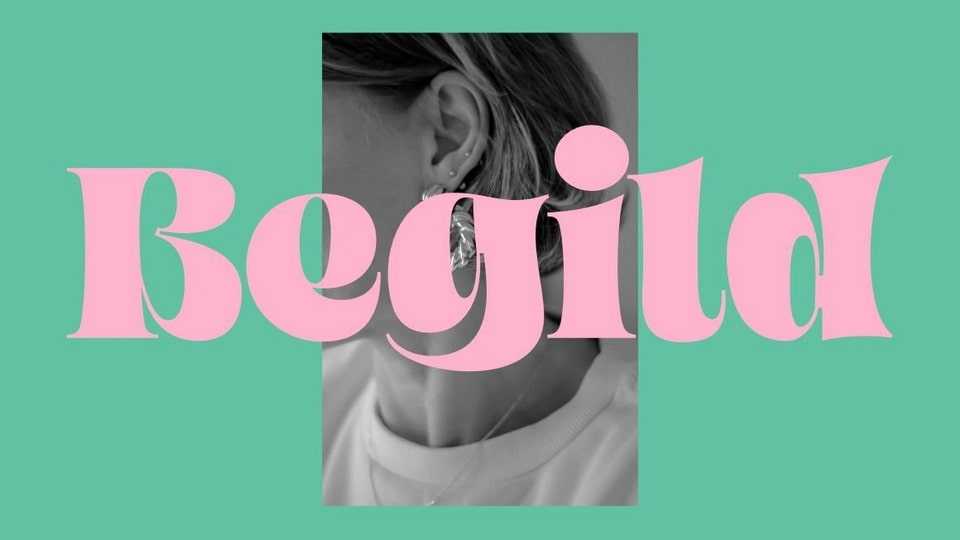
Download Begild font, a bold, fun and attractive display typeface. With its modern look Begild font will keep your work fresh with an appealing look.
Designer: Reyrey Blue